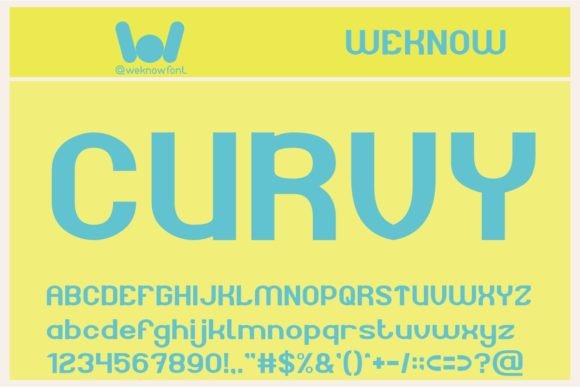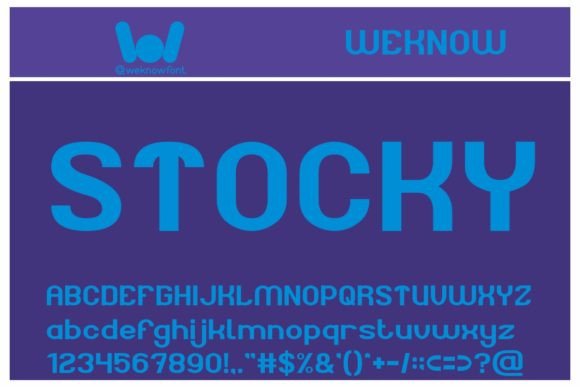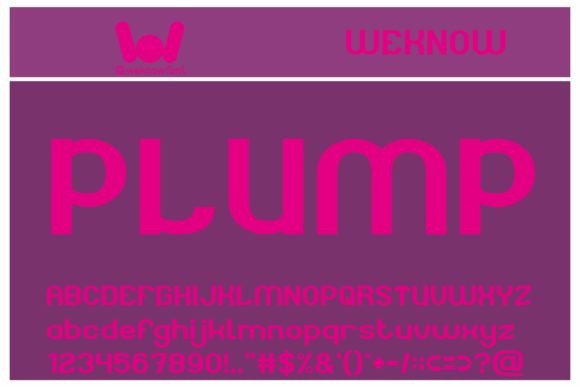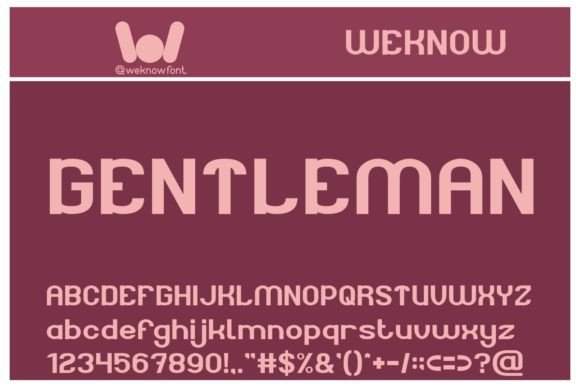
The Ultimate Guide to Chubby Font: A Designer’s New Best Friend
I’ll never forget the time I was working on a logo design project for a trendy new coffee shop. My client wanted a font that was fun, modern, and would appeal to a young audience. I spent hours scouring the internet for the perfect font, but nothing seemed quite right. That was until I stumbled upon Chubby Font. ✨
As soon as I saw it, I knew I had found what I was looking for. Chubby is a basic sans serif font with a playful twist that’s perfect for a wide range of design projects. In this article, I’ll share my experience with Chubby Font, including what I love about it, some quirks to watch out for, and how to get the most out of it in your designs.
An Honest Review of Chubby Font
What I Love About Chubby Font
• ✅ Versatility: Chubby Font is incredibly versatile and can be used for everything from logos and headlines to body text and captions.
• ✨ Playful vibe: The font has a fun, playful personality that’s perfect for brands that want to appeal to a young audience.
• 💡 Ease of use: Chubby Font is easy to read and works well in a variety of contexts, from digital screens to print.
• 🎨 Customization options: The font comes with a range of OpenType features, glyphs, and stylistic alternates that allow you to customize it to suit your design needs.
While Chubby Font is an excellent choice for many design projects, there are a few quirks to watch out for: 🤔
• ⚠️ Limited contrast: Chubby Font has a relatively low contrast between the thick and thin strokes, which can make it harder to read in certain contexts.
• ⚠️ Not ideal for body text: While Chubby Font is great for headlines and captions, it’s not the best choice for body text, as it can be a bit too playful and distracting.
A Practical Guide to Using Chubby Font
The Backstory of Chubby Font
Chubby Font was designed by a team of creatives who wanted to create a font that was both fun and functional. The font was inspired by the playful, carefree vibe of childhood and the simplicity of sans serif typography. While the designers behind Chubby Font are not well-known, their work has clearly resonated with the design community. 💕
Font Name Chubby Font
Author weknow
Q: What is Chubby Font?
A: Chubby Font is a basic sans serif font with a playful twist that’s perfect for a wide range of design projects.
Q: What are some common uses for Chubby Font?
A: Chubby Font is perfect for logos, headlines, captions, and other design elements that need a playful, modern touch.